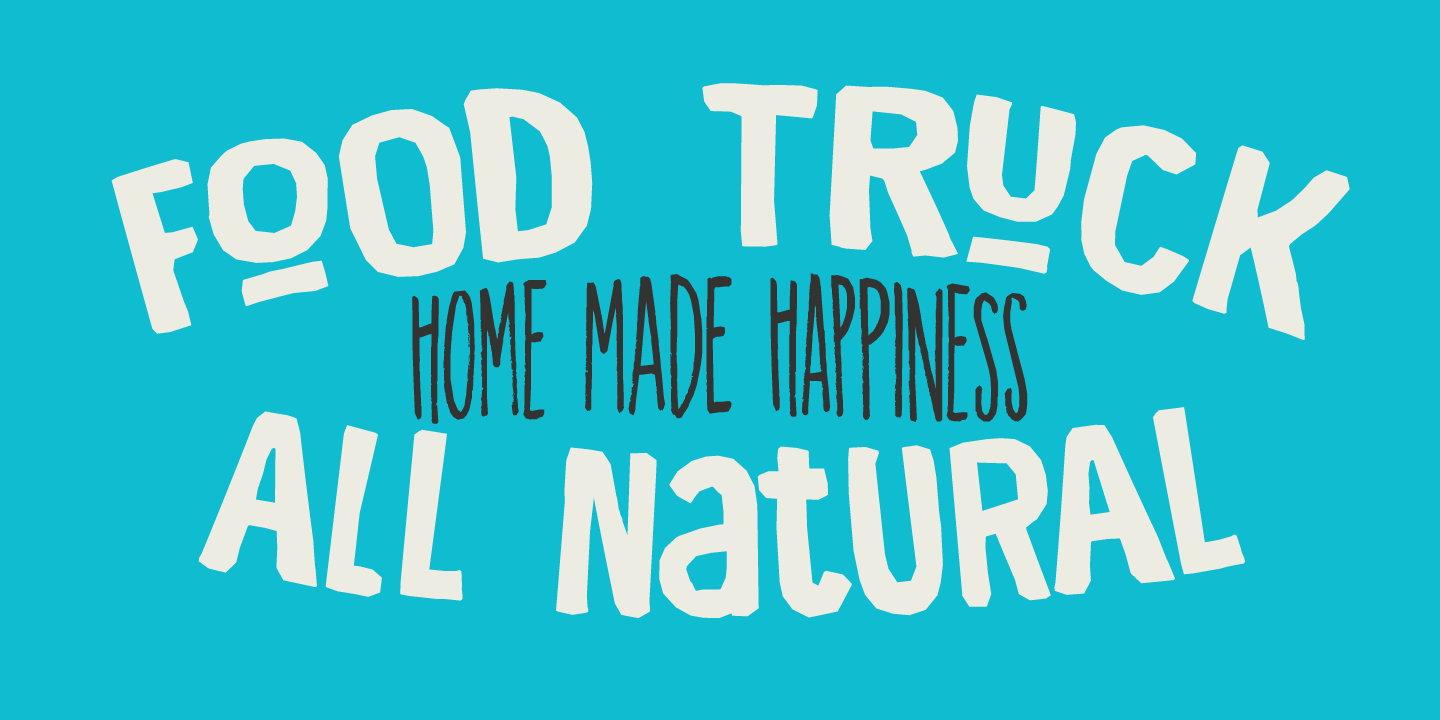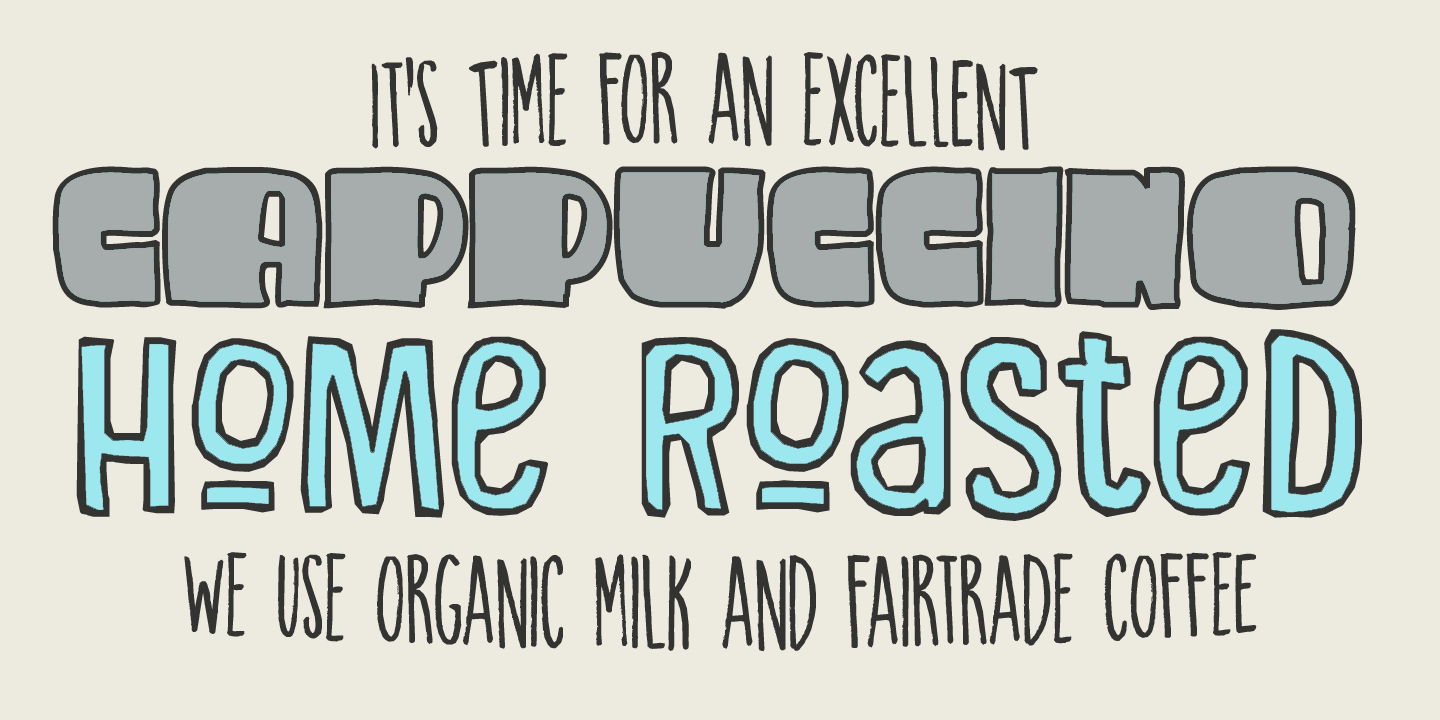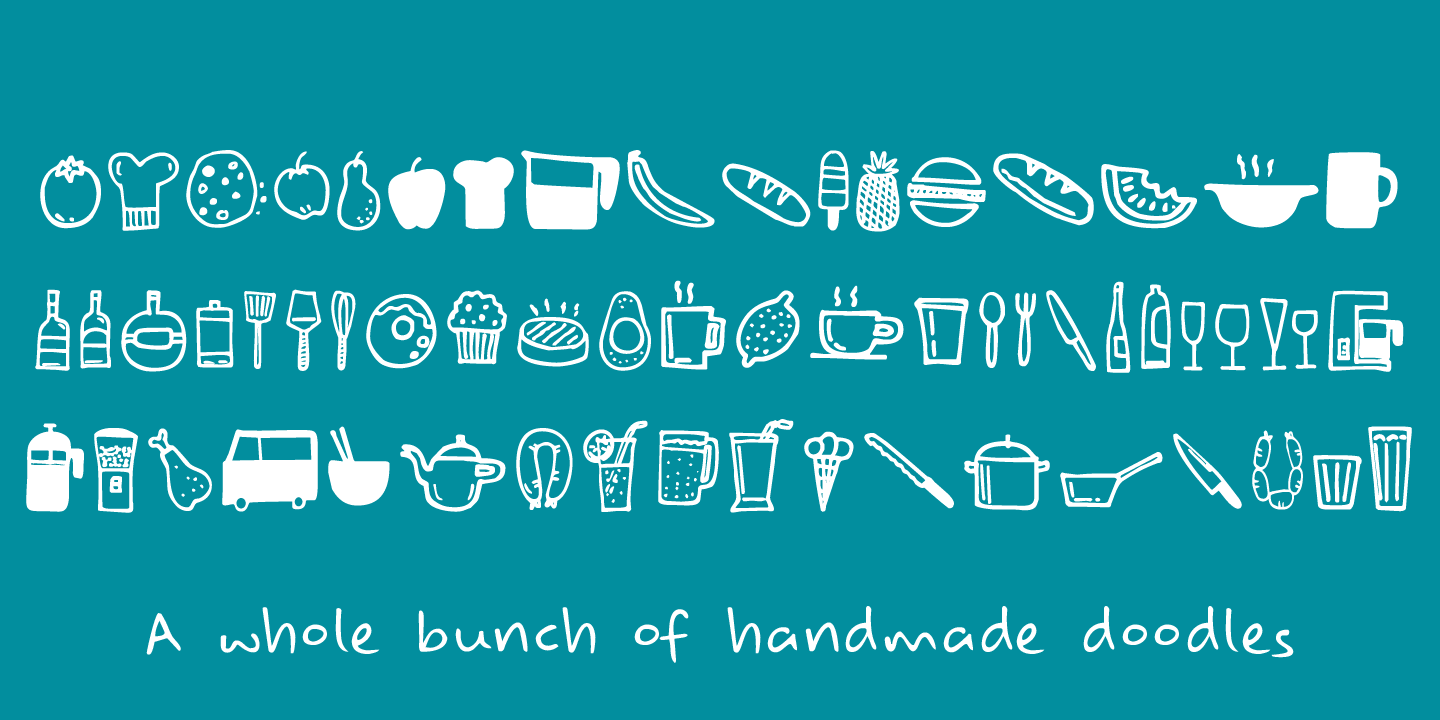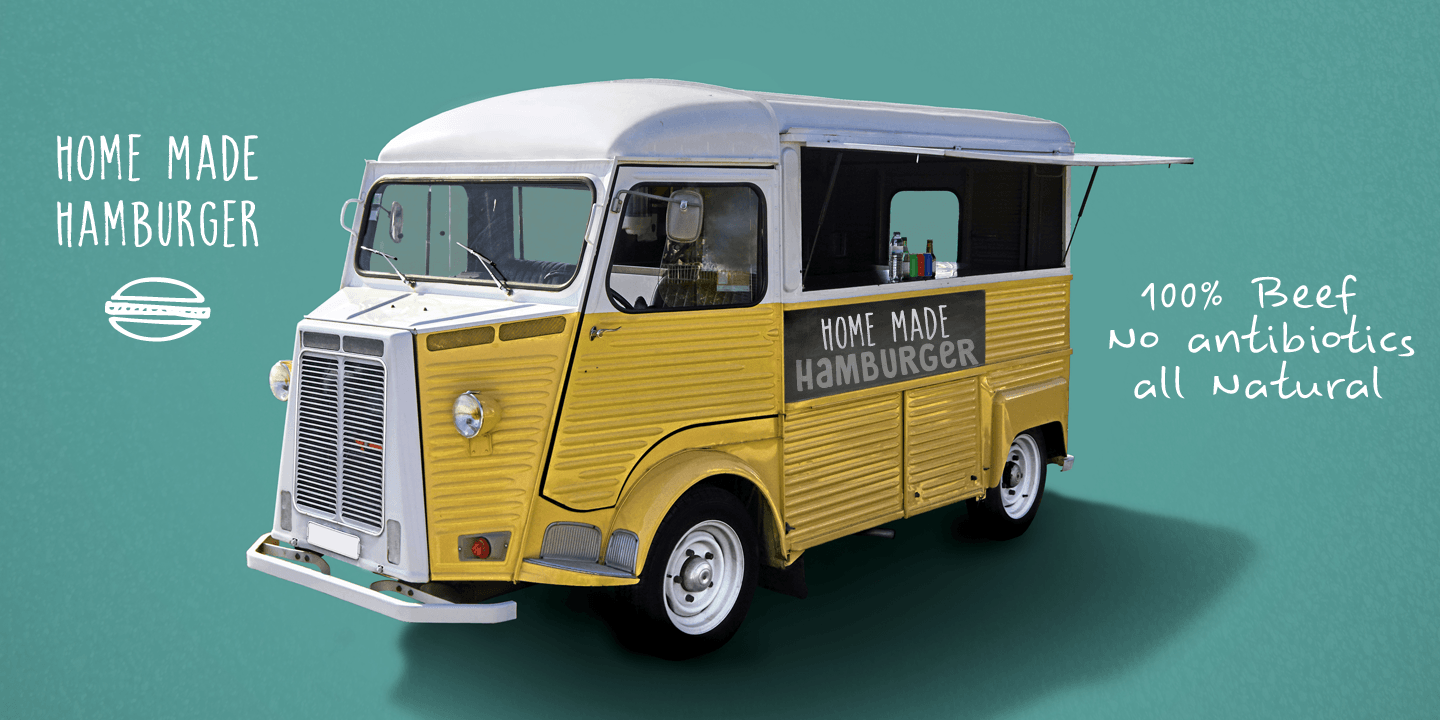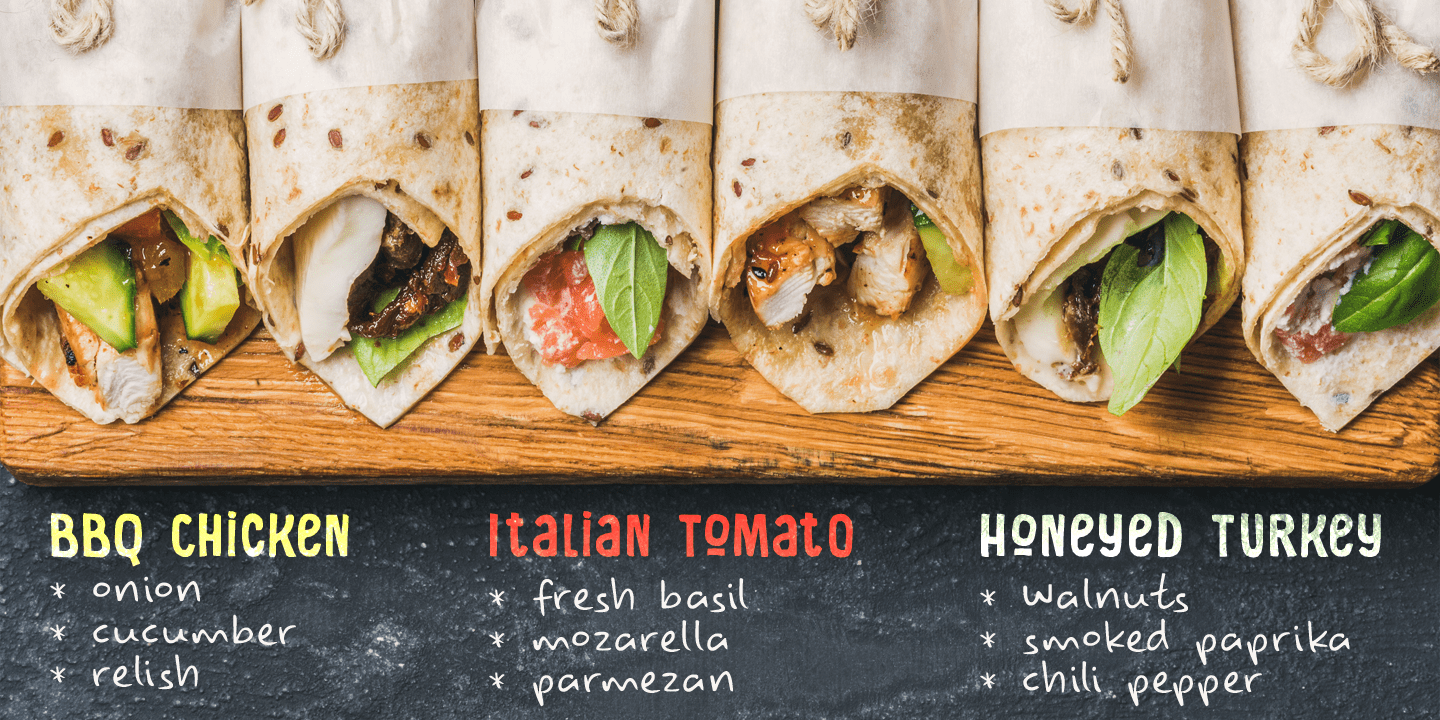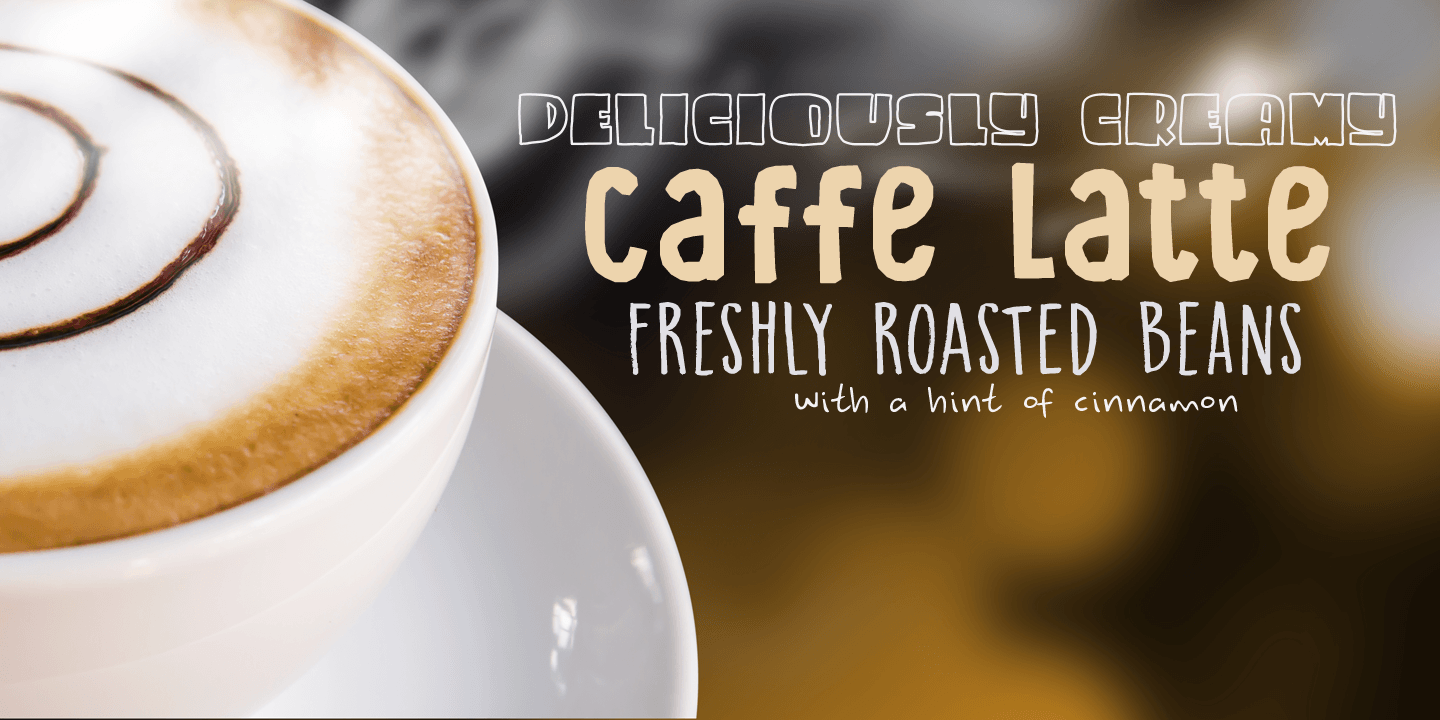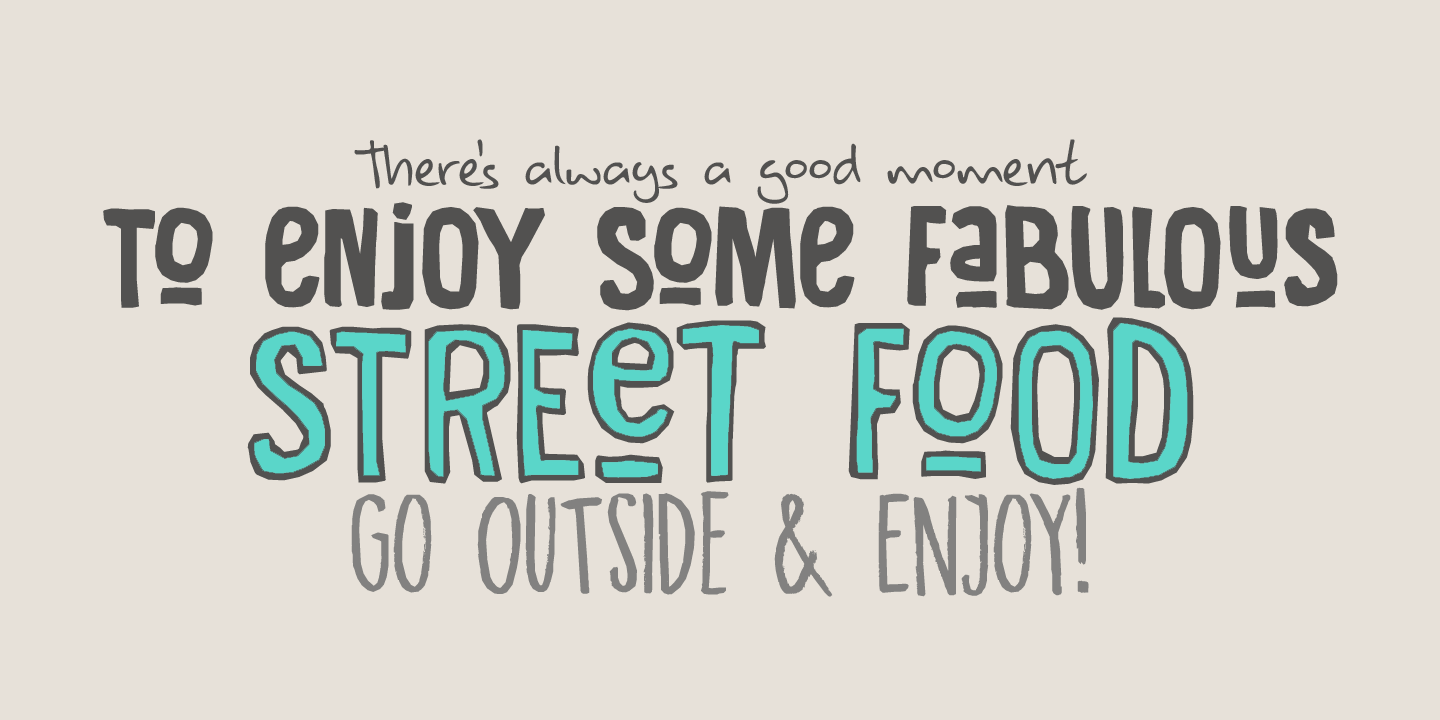
Food Truck
Food Truck package is a wonderful set of fonts. During my recent trip to Japan, I stumbled upon a food truck / street food festival in Nara. Besides drinking the best cup of coffee ever (seriously, it was THAT good!), I got the idea of creating a font package based on the various handwritten signs I saw at the festival.
Food Truck package consists of a fat headline font, a couple of outlined fonts, a great chalkboard font, a rather messy script font and a whole bunch of food-related doodles.